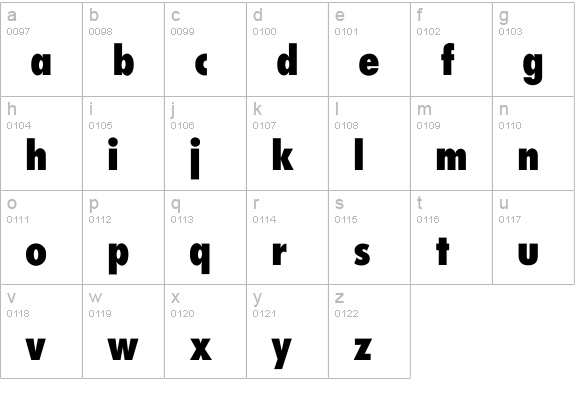
Souerson_ExtraBold-Normal Font Details
Souerson_ExtraBold-Normal is the standard, neutral variant in the Souerson_ExtraBold typeface family \xE2\x80\x94 well suited to general body text, paragraphs, and standard typographic work.
Introducing Souerson_ExtraBold-Normal, a stunning font that exudes strength and boldness in every letterform. This extraordinary typeface effortlessly commands attention with its clean lines, sharp edges, and powerful presence. Designed with meticulous attention to detail, Souerson_ExtraBold-Normal is perfect for making a statement in any design project. With its robust and assertive nature, Souerson_ExtraBold-Normal is an ideal choice for logos, headlines, posters, and any other application where impact and legibility are paramount. Each character is carefully crafted to deliver maximum visual impact while maintaining excellent readability, ensuring that your message will be conveyed with utmost clarity and style. What sets Souerson_ExtraBold-Normal apart is its versatility. While it excels in conveying strength and confidence, it also possesses a touch of elegance and sophistication, making it suitable for a wide range of design styles and purposes. Whether you're aiming for a sleek and modern look or a more timeless and classic aesthetic, Souerson_ExtraBold-Normal will effortlessly adapt to your creative vision. And the best part? Souerson_ExtraBold-Normal is available for free download at FontsMarket.com. This means that you can enhance your design projects without spending a dime. Simply head over to FontsMarket.com and grab this exceptional font to elevate your designs to new heights. So why wait? Take advantage of this incredible opportunity to add Souerson_ExtraBold-Normal to your font library today. Make a statement, captivate your audience, and unleash your creativity with this remarkable typeface. Download it for free at FontsMarket.com and let Souerson_ExtraBold-Normal become your go-to font for all your design needs.